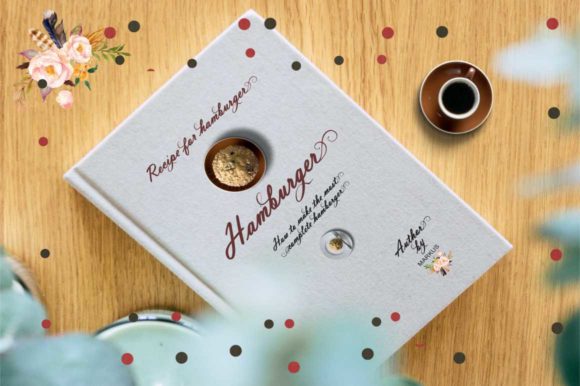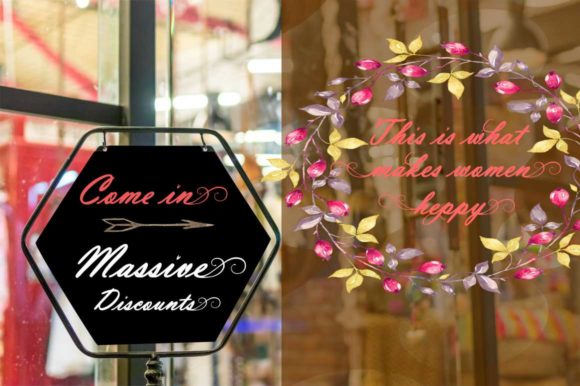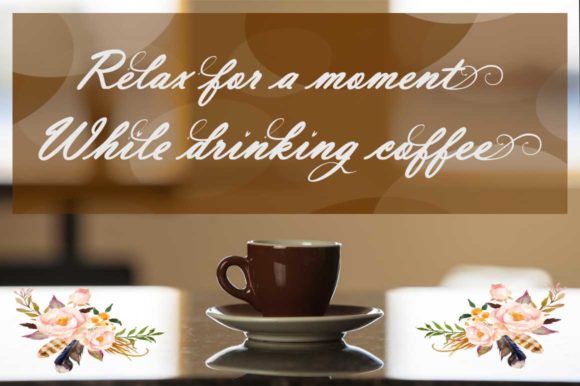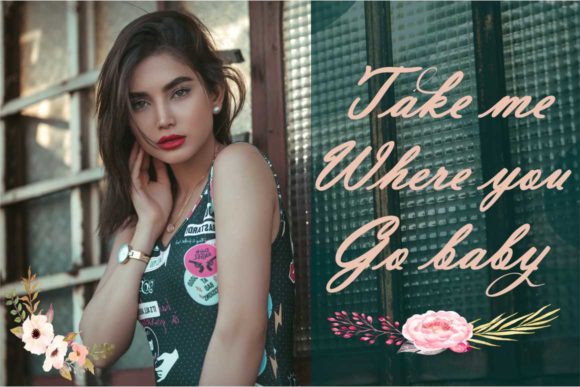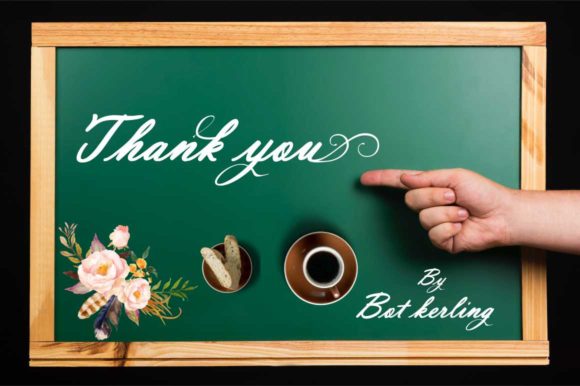
The Elegant Ally You Need: A Deep Dive into Alyssa Ghazali Font
I’ll never forget the time I was working on a branding project for a luxury wedding planner. My client was adamant about having a custom, elegant look that exuded sophistication and romance. As I scrolled through font after font, nothing seemed quite right – until I stumbled upon Alyssa Ghazali. This stunning script font swept me off my feet with its perfect blend of classic calligraphy and modern flair. I knew right then and there that it was the one.
So, what makes Alyssa Ghazali such a standout? Let’s dive into the good stuff:
- ✨ Elegant yet approachable: This font nails the balance between sophistication and friendliness. It’s perfect for projects that need a touch of luxury without feeling stuffy.
- ✅ Versatile: From letterheads and titles to stationery and more, Alyssa Ghazali adapts seamlessly to various design needs.
- 💫 Contemporary feel: Unlike some traditional script fonts, Alyssa Ghazali feels fresh and modern, making it ideal for contemporary designs.
Of course, no font is perfect. Here are a few quirks to keep in mind:
- ⚠️ Legibility at small sizes: Like many script fonts, Alyssa Ghazali can get a bit tricky to read at very small sizes. It’s best used at larger sizes where its beauty can shine.
- 🤔 Glyph overload: With a wealth of OpenType features and glyphs, it can take some time to get familiar with all the alternates and swashes. But trust me, it’s worth the exploration.
The Story Behind Alyssa Ghazali
While the actual backstory of Alyssa Ghazali’s creation might be shrouded in mystery, it’s easy to imagine a designer with a passion for calligraphy and modern design trends crafting such a font. Perhaps they sought to capture the essence of handwritten elegance in a digital age, balancing traditional techniques with contemporary style. Whatever the inspiration, Alyssa Ghazali is a testament to the power of thoughtful design.
| Author | Rama Type |
| Is Alyssa Ghazali suitable for body text? | While beautiful, Alyssa Ghazali’s script nature makes it more suited for headings and titles. For body text, a more straightforward font would improve readability. |
Alyssa Ghazali is more than just a font – it’s a design ally that brings elegance and versatility to your projects. Whether you’re a designer working on a client’s luxury brand or a hobbyist crafting beautiful stationery, this font is sure to impress. With its blend of classic calligraphy and modern freshness, Alyssa Ghazali is poised to become a staple in your font library.